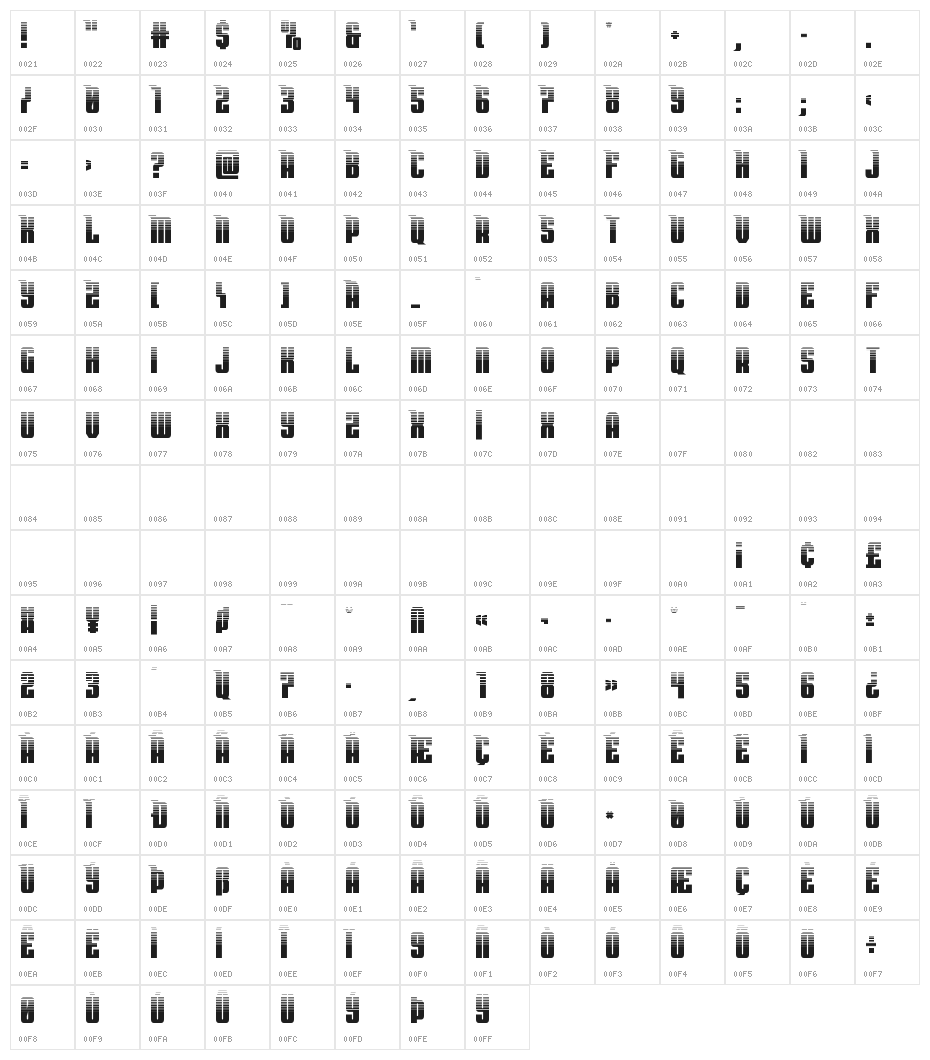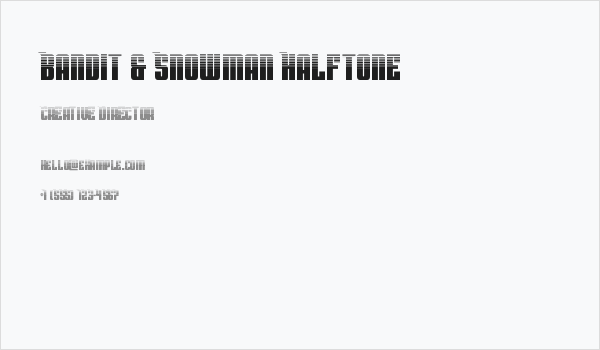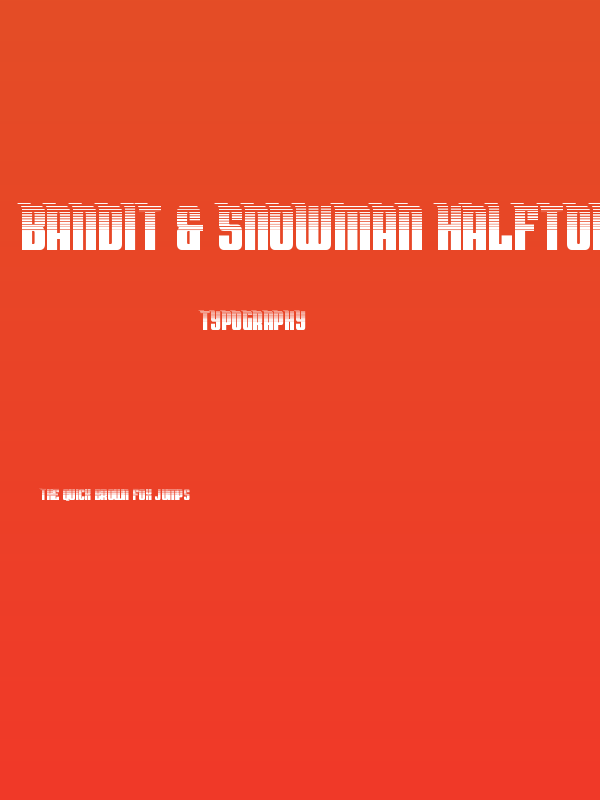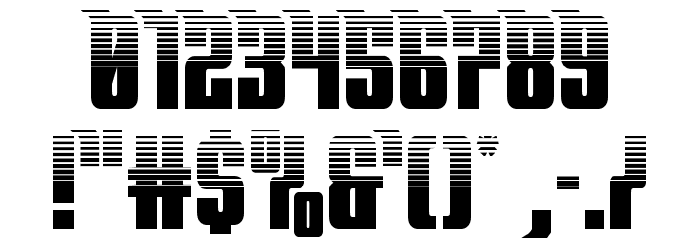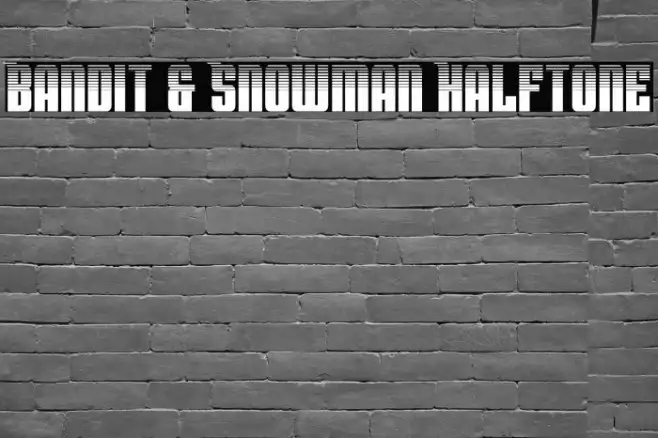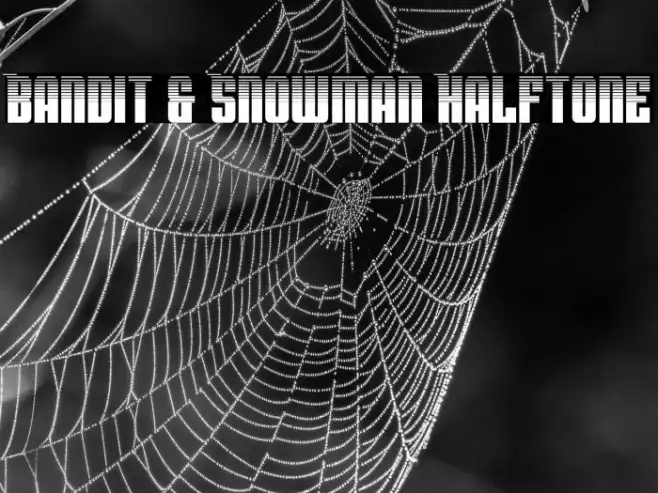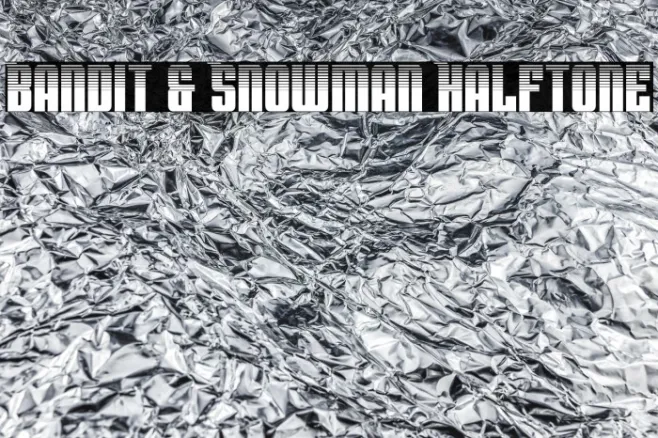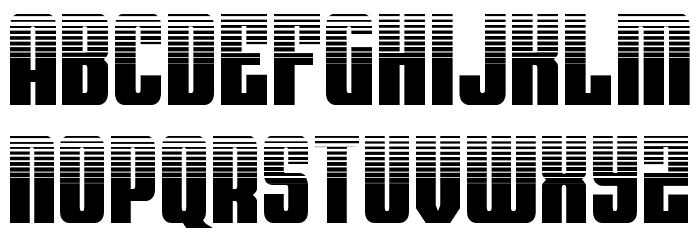
Bandit & Snowman Halftone Font
Bandit & Snowman Halftone Description
This font features a bold, modern design with a unique halftone effect that gives it a dynamic and eye-catching appearance. The uppercase and lowercase letters, as well as numbers and special characters, are all designed with a consistent pattern of horizontal lines that create a gradient effect from top to bottom. This style adds a sense of movement and depth, making it ideal for projects that require a strong visual impact. The characters are wide and have a substantial presence, making them suitable for headlines and display purposes. The font's geometric structure and sharp edges contribute to its contemporary and edgy feel.
| Proposed Projects | Ideal for posters, album covers, branding, and any project needing a bold, modern touch. |